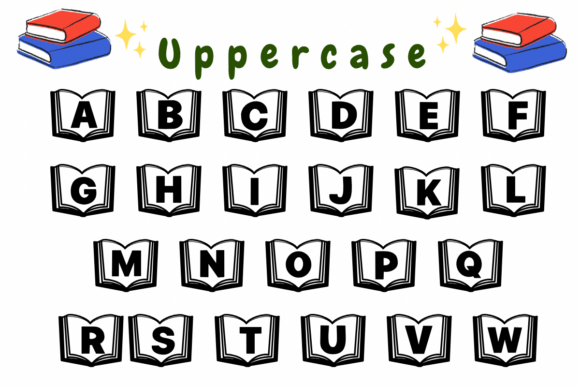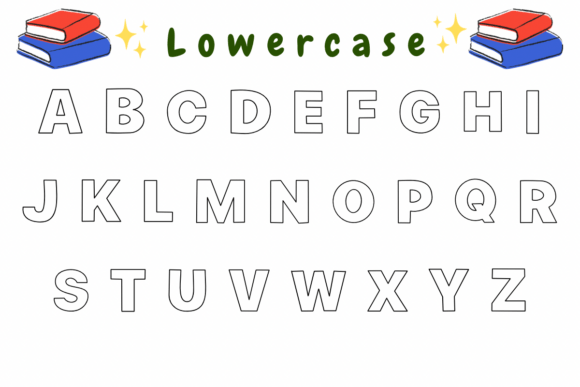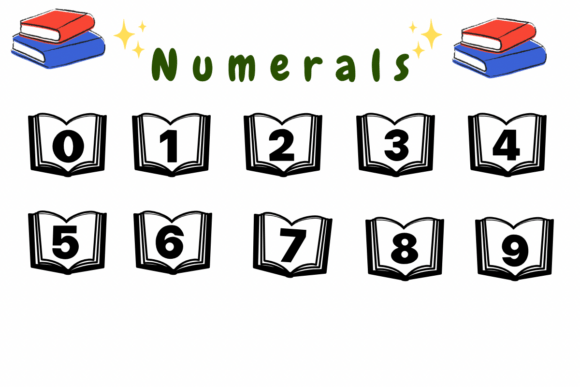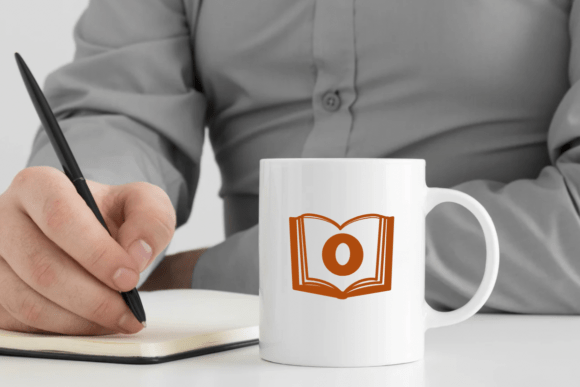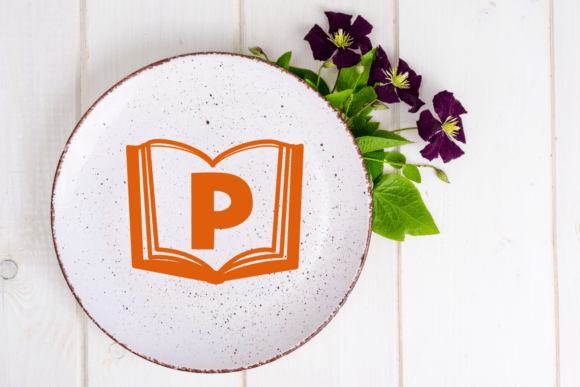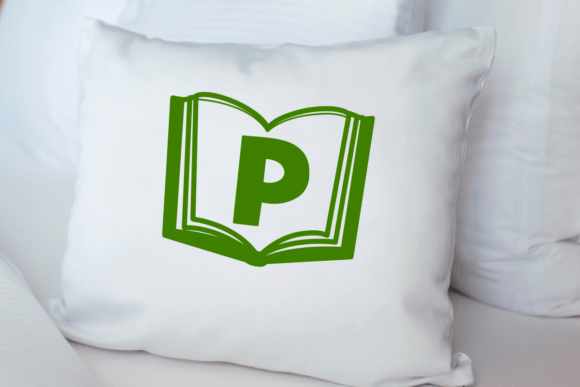
Introduction to Alphabet Book Font
Alphabet Book is a playful decorative font where each letter is creatively placed inside the shape of an open book.
Its fun and educational design makes it perfect for childrenโs projects, classroom materials, posters, storybooks, and learning activities With its charming style, Alphabet Book adds a sense of imagination and learning to any design.